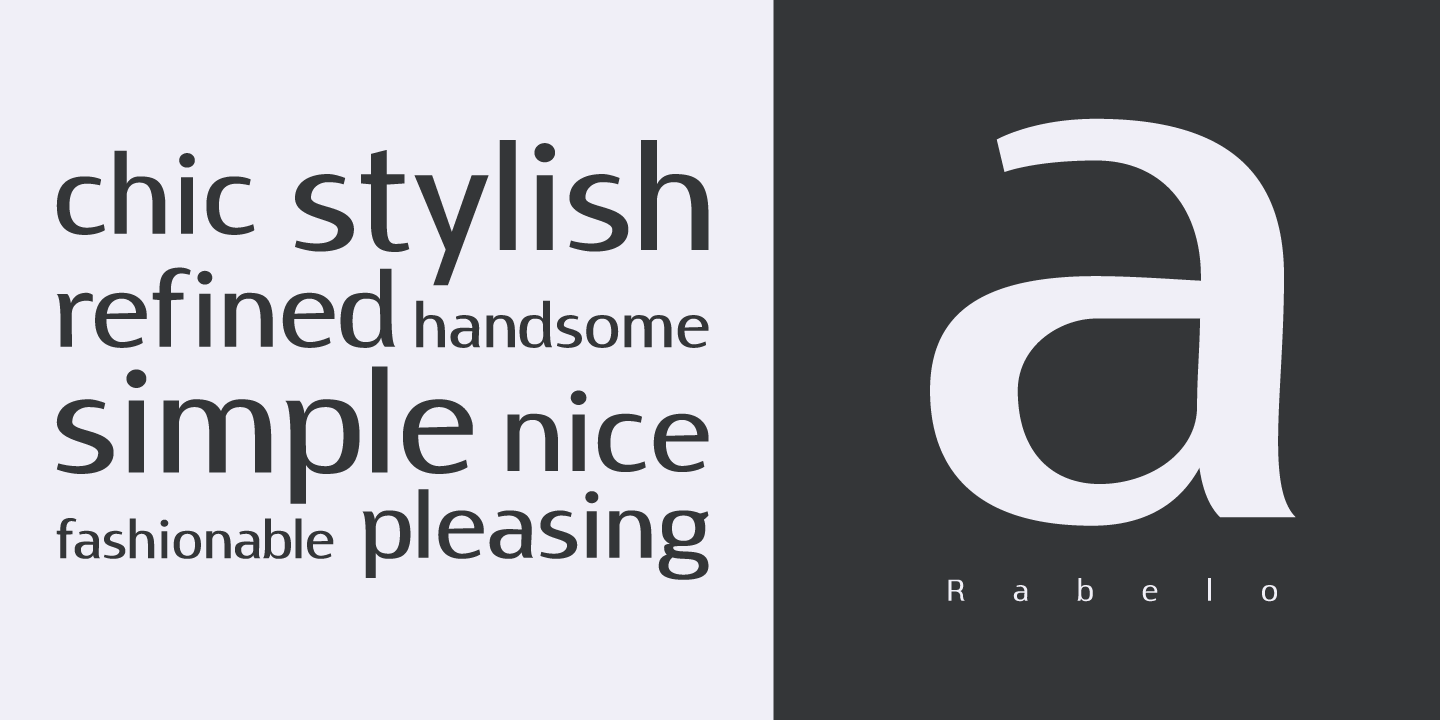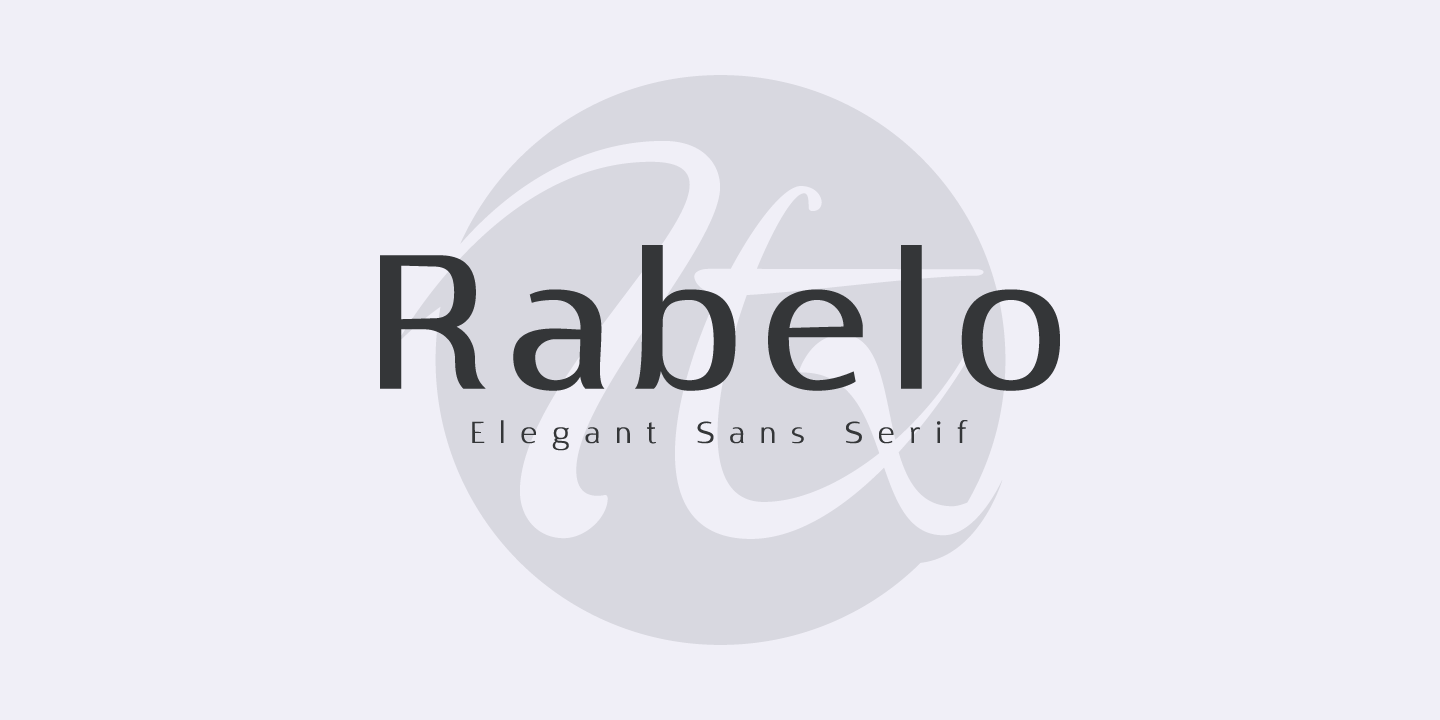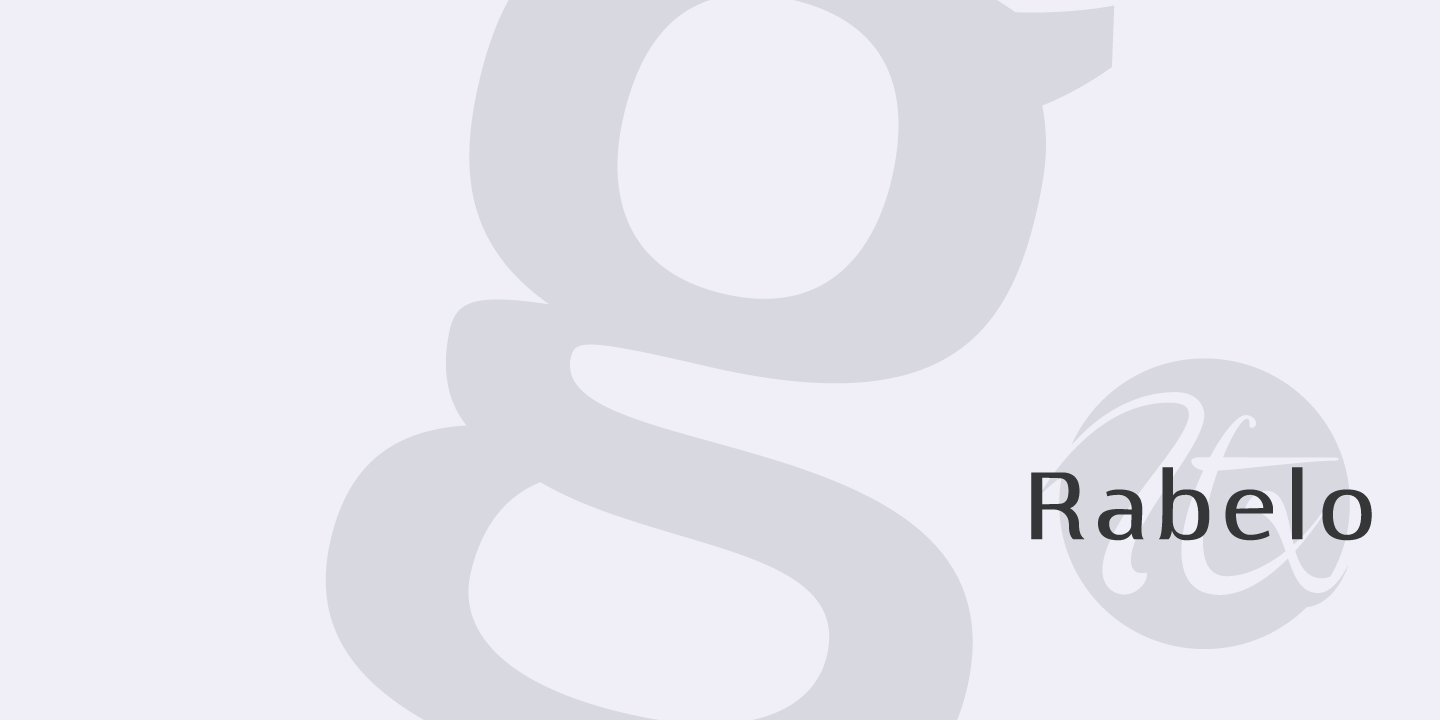
Introduction to Rabelo Thin Font
As a designer, there’s nothing quite like the thrill of bringing a creative project to life. It’s the moment when all the pieces come together, and your vision takes shape. For many of us, that moment is often sparked by the perfect font. And, if you’re looking for a font that exudes elegance and sophistication, look no further than the Rabelo Thin Font.
This stunning font is part of the Rabelo font family, and its Thin version is sure to elevate any design project. With its high-quality design and transparent background, it’s the perfect addition to any creative endeavor. Plus, as part of the free Rabelo font family, you can download it without breaking the bank.
Key Features of Rabelo Thin Font
- Rabelo Thin Font is a high-quality design resource perfect for creative projects that require a touch of elegance.
- This font features a transparent background, allowing for seamless integration into any design.
- Rabelo Thin Font has a high resolution, suitable for use in various design applications, including logos, graphics, and typography.
- Its unique, thin design makes it an ideal choice for creating a minimalist and modern aesthetic in your creative project.
Honest Review: Rabelo Thin Font
As a designer, I’m always on the lookout for high-quality design resources to enhance my creative projects. Recently, I had the chance to try out the Rabelo Thin Font, and I’m excited to share my honest review.
- ✨ Elegant and refined feel: The Rabelo Thin Font has a beautiful, minimalist aesthetic that adds a touch of sophistication to any design project.
- ✨ Clear and readable: The font is incredibly clear and easy to read, even at smaller font sizes.
- ✨ Versatile: The Rabelo Thin Font can be used in a wide range of design applications, from logos to web design.
However, I did encounter a few limitations: ⚠️ Limited font sizes: While the font is clear and readable, it’s not ideal for very large or very small font sizes.
Overall, I’m impressed with the Rabelo Thin Font. It’s a high-quality design resource that’s perfect for designers who want to add a touch of elegance to their creative projects. The free download is a nice bonus, and the transparent background makes it easy to use in a variety of design applications.
I would definitely recommend the Rabelo Thin Font to fellow designers who are looking for a reliable and versatile font.
Tips for Getting the Most Out of Rabelo Thin Font
To get the most out of Rabelo Thin Font, experiment with different font sizes, colors, and combinations with other fonts. You can also use it in conjunction with graphics and images to create visually appealing designs.
Common Use Cases for Rabelo Thin Font
Rabelo Thin Font is ideal for use in creative projects such as social media graphics, presentations, and marketing materials. It’s also great for use in editorial content, such as blog posts and articles, where a clean and modern font is desired.